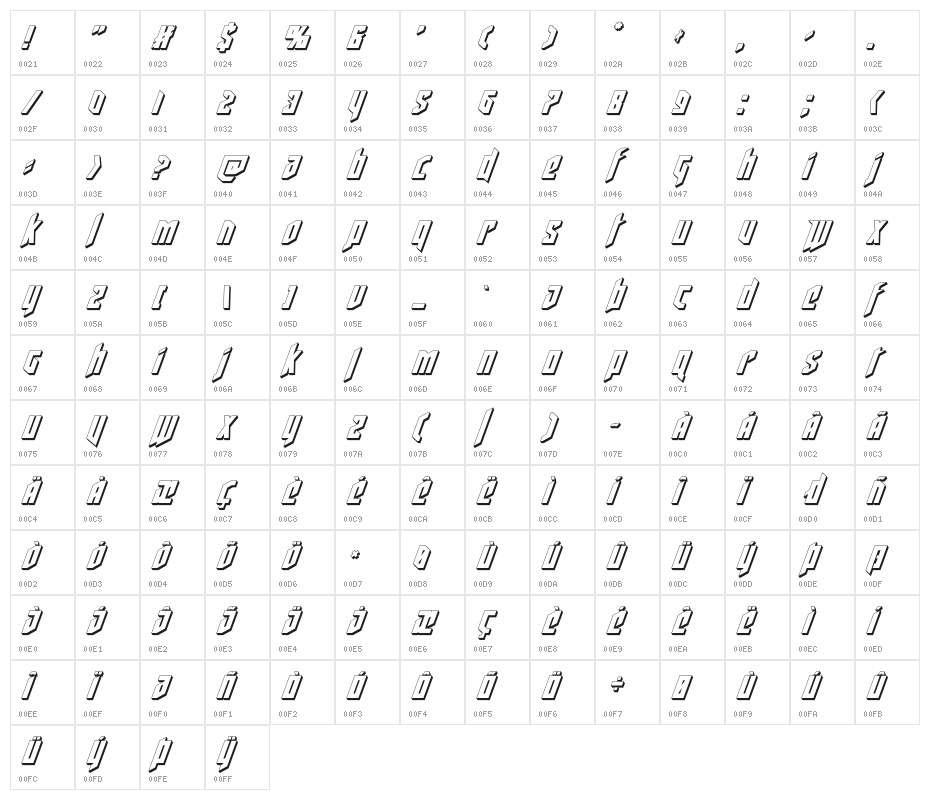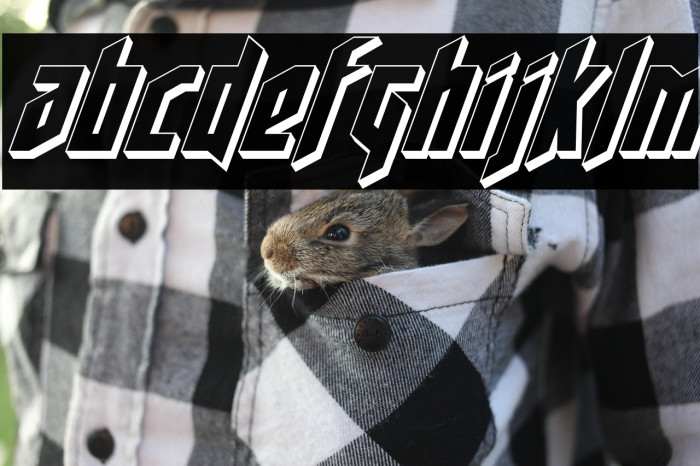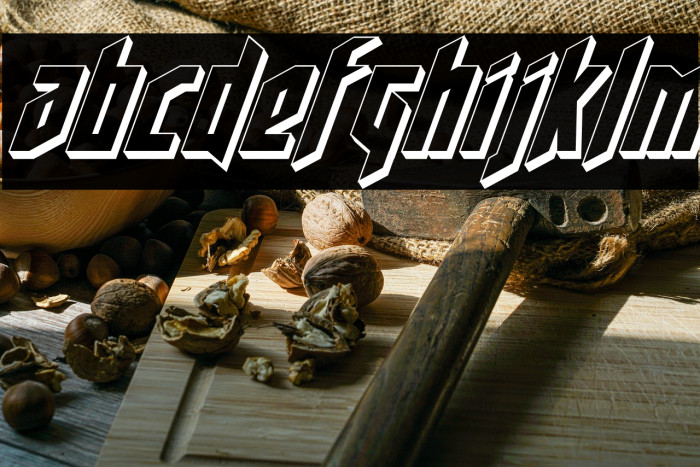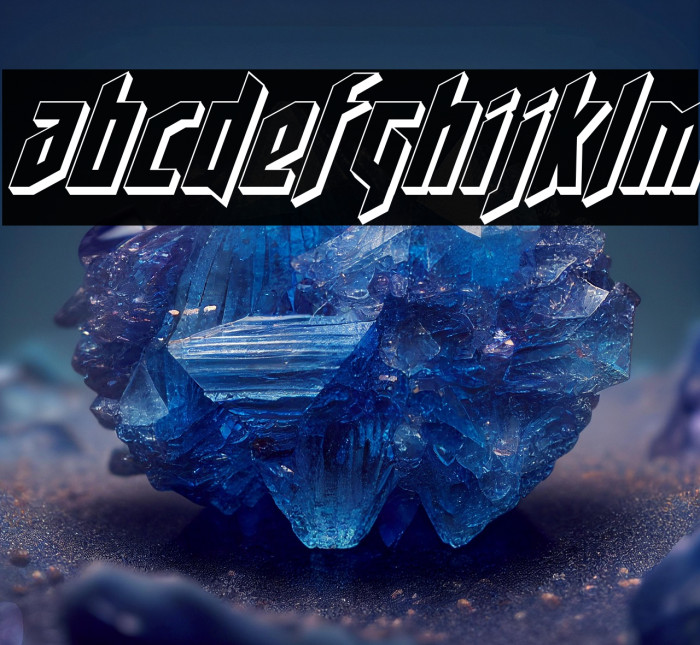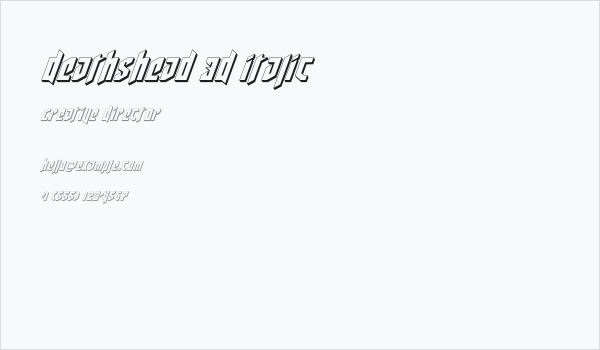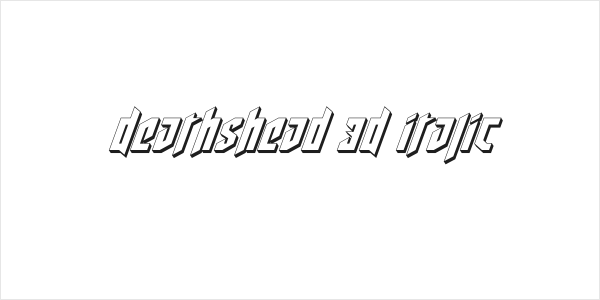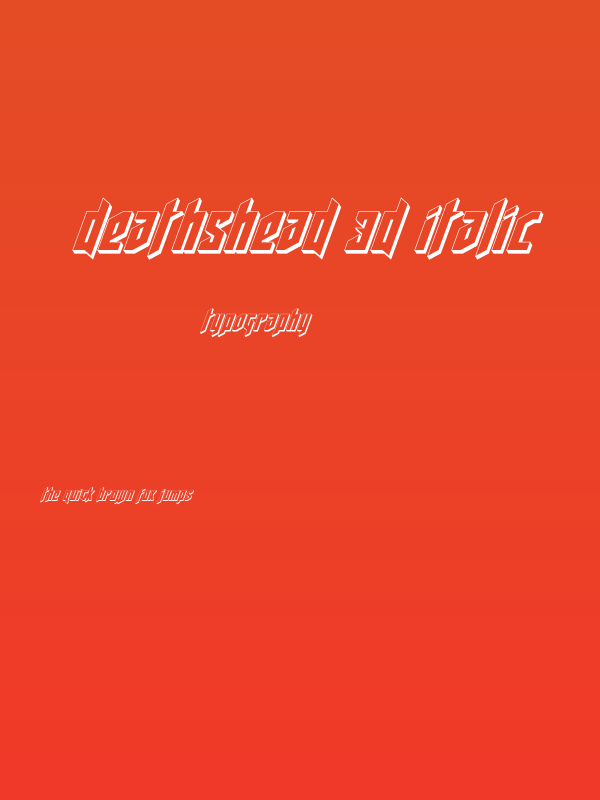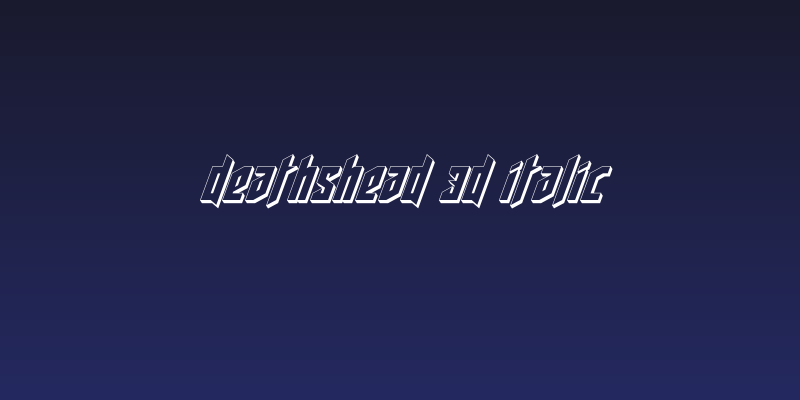
Deathshead 3D Italic Font
Deathshead 3D Italic Description
This font features a bold, three-dimensional design with an italic slant, creating a dynamic and impactful appearance. The characters are angular and sharp, with a strong geometric influence that gives them a futuristic and edgy look. The shadow effect enhances the 3D illusion, making the letters appear as if they are popping off the page. This style is consistent across uppercase, lowercase, numerals, and special characters, providing a cohesive and striking visual experience. The font's unique style is ideal for projects that require a bold statement or a modern, tech-inspired aesthetic.